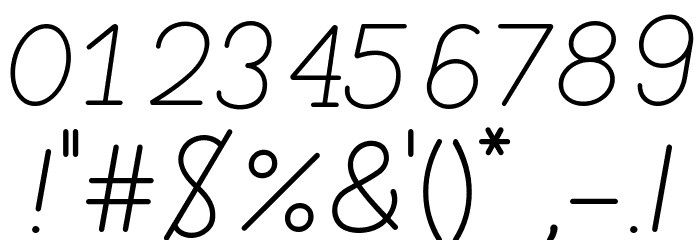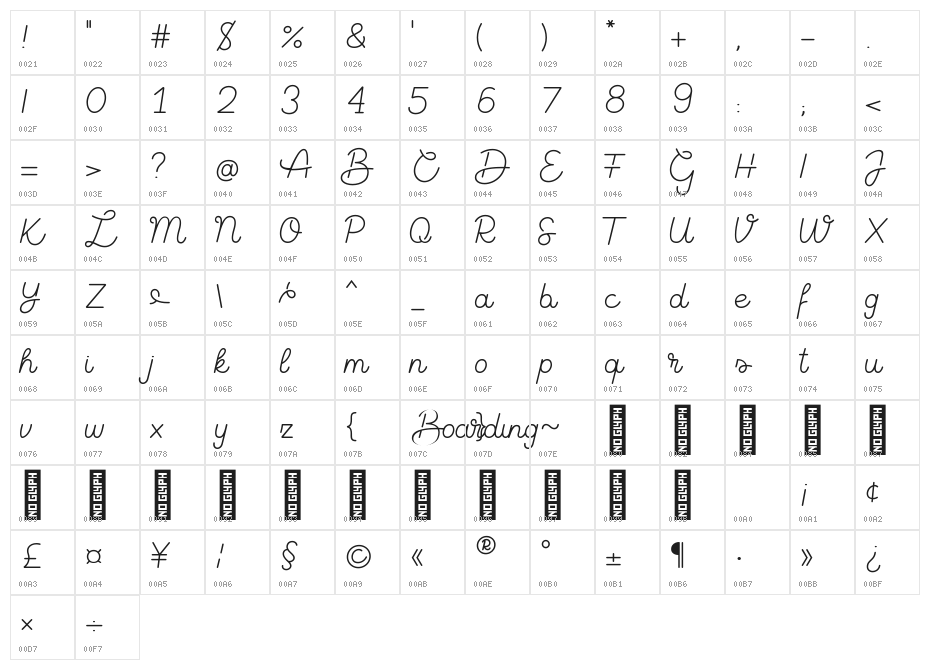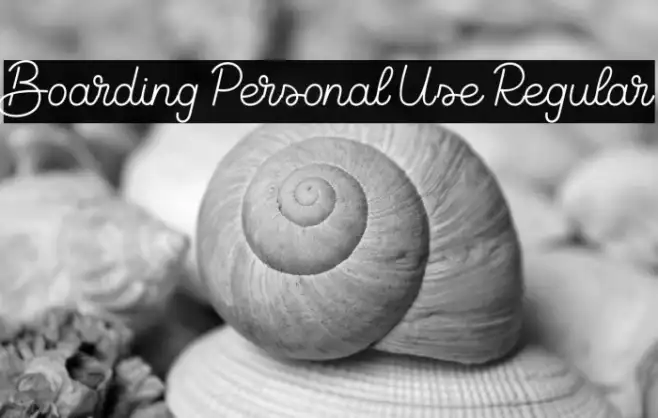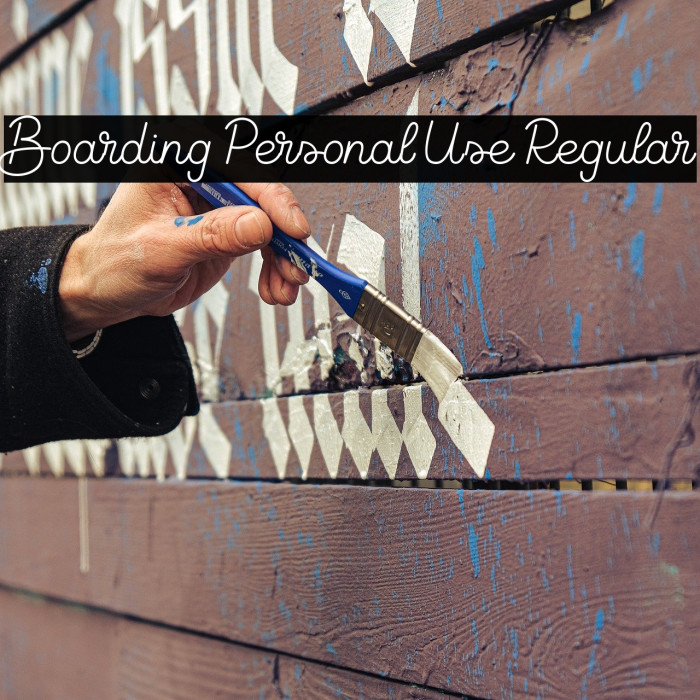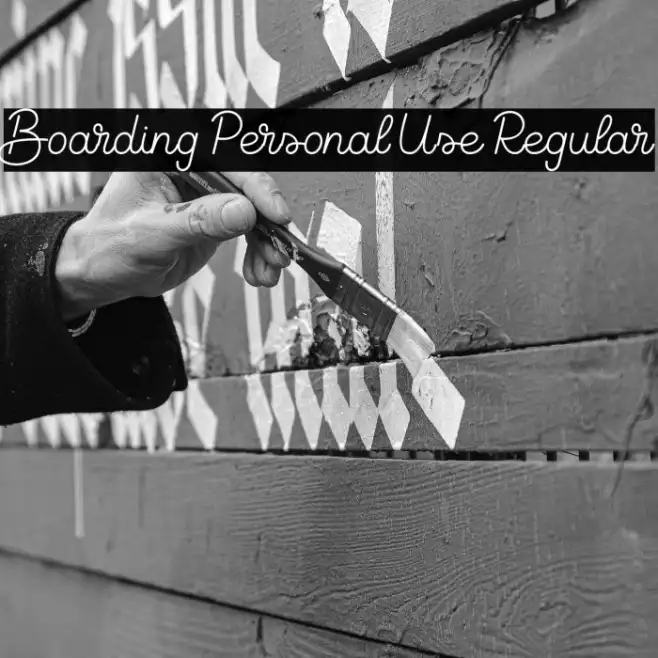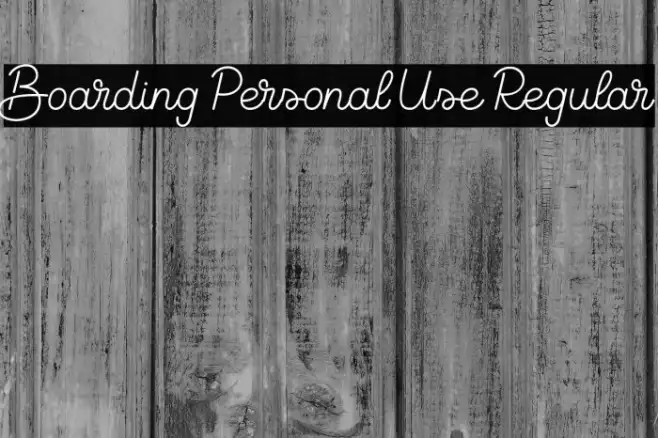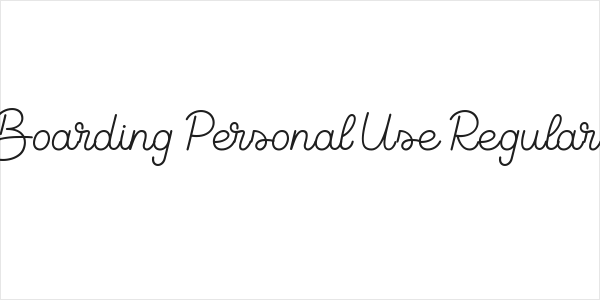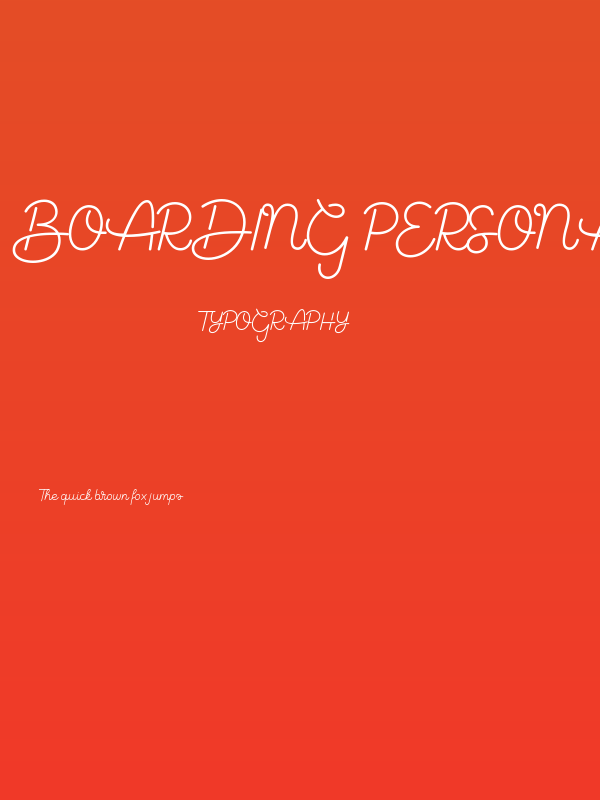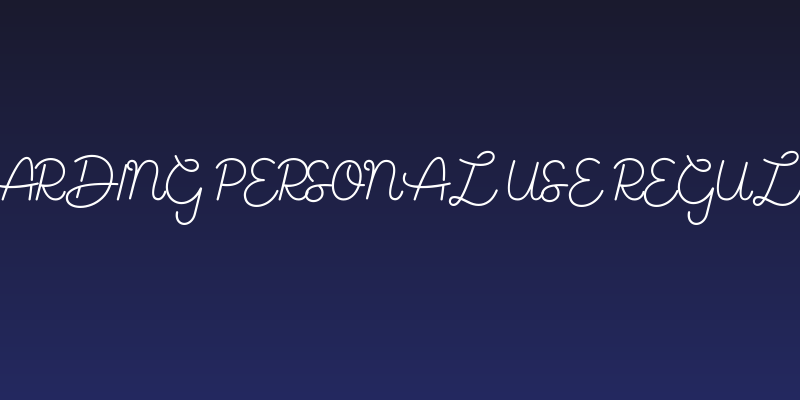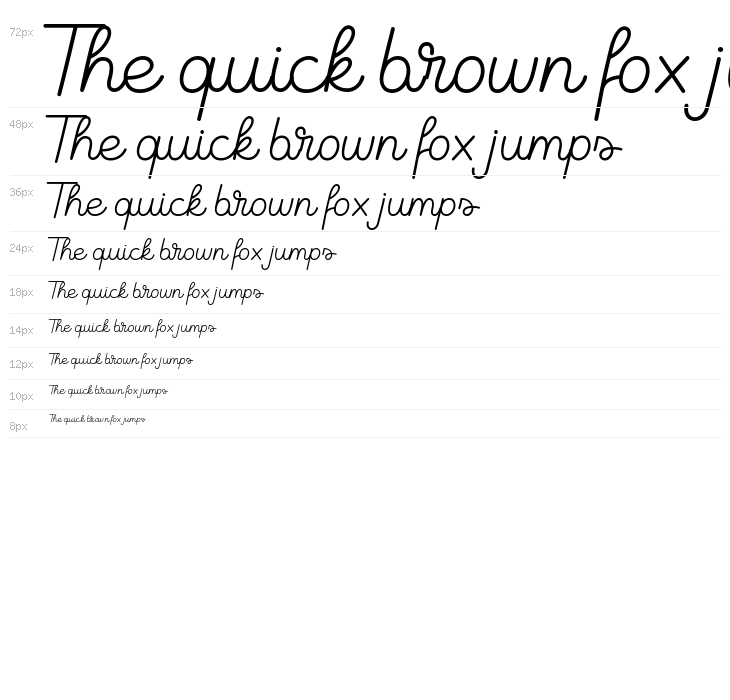
Boarding Personal Use Regular Font
Boarding Personal Use Regular Description
This font features a playful and elegant script style with smooth, flowing lines that create a sense of movement and grace. The uppercase letters are slightly more elaborate, with some characters having unique loops and swirls that add a decorative touch. The lowercase letters maintain a consistent flow, making them easy to read while retaining a handwritten feel. The numerals and special characters are designed to match the overall aesthetic, ensuring a cohesive look across all text. This font is ideal for projects that require a personal, friendly, and approachable tone.